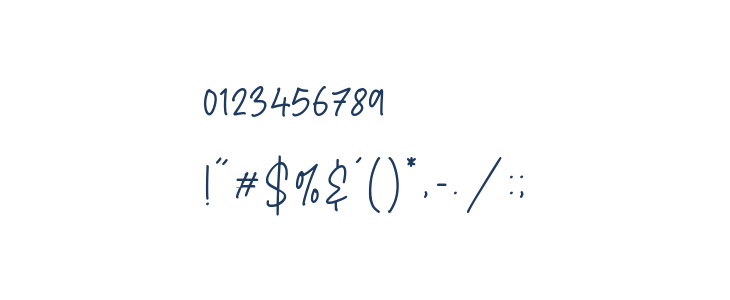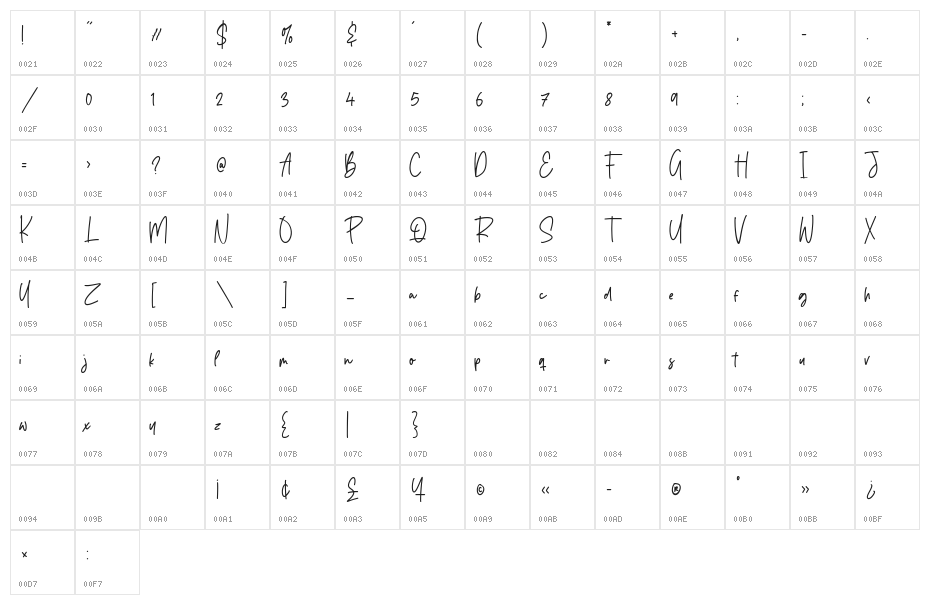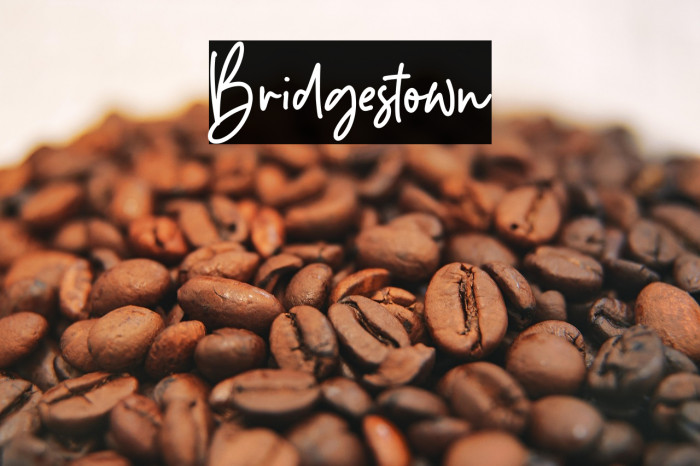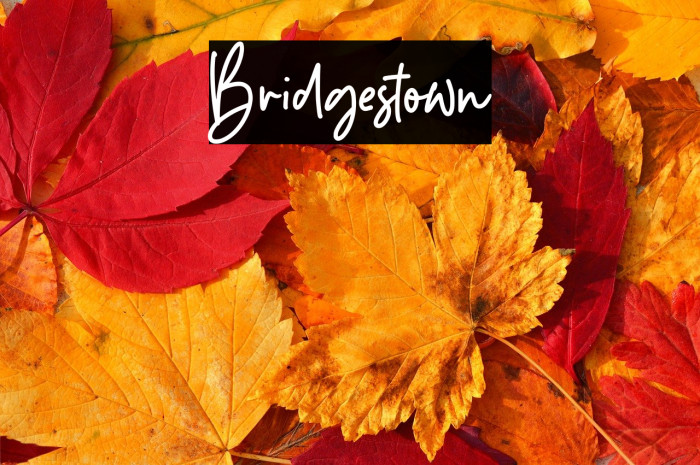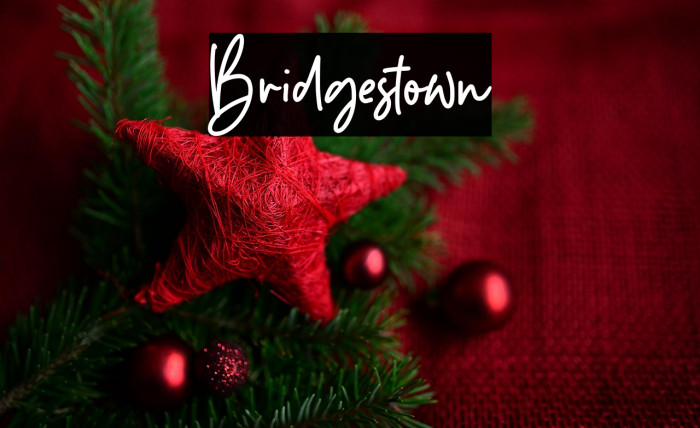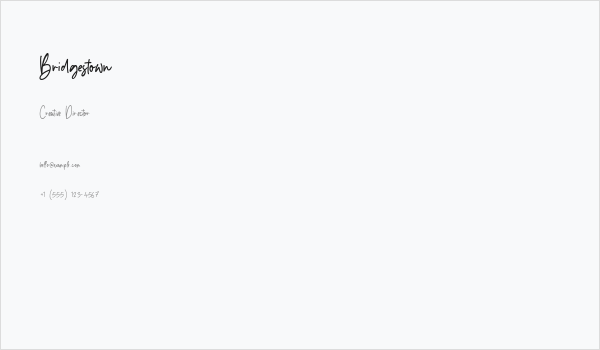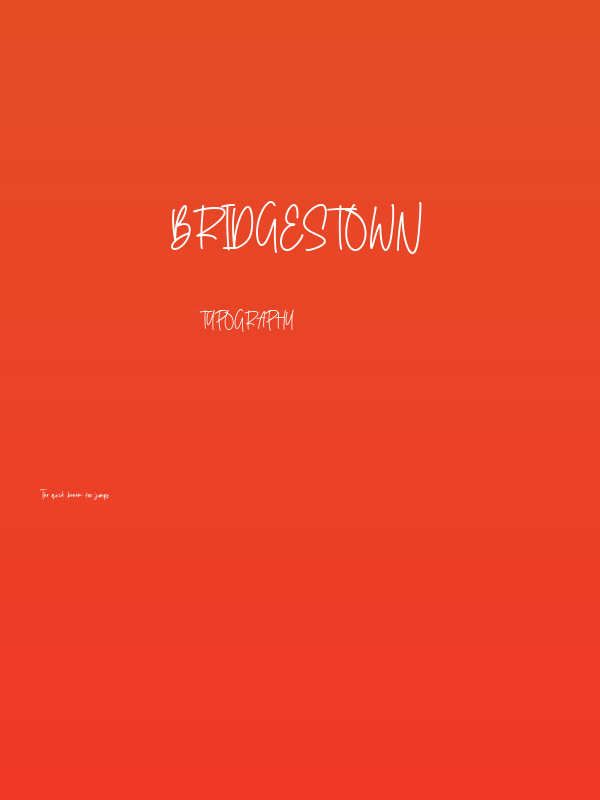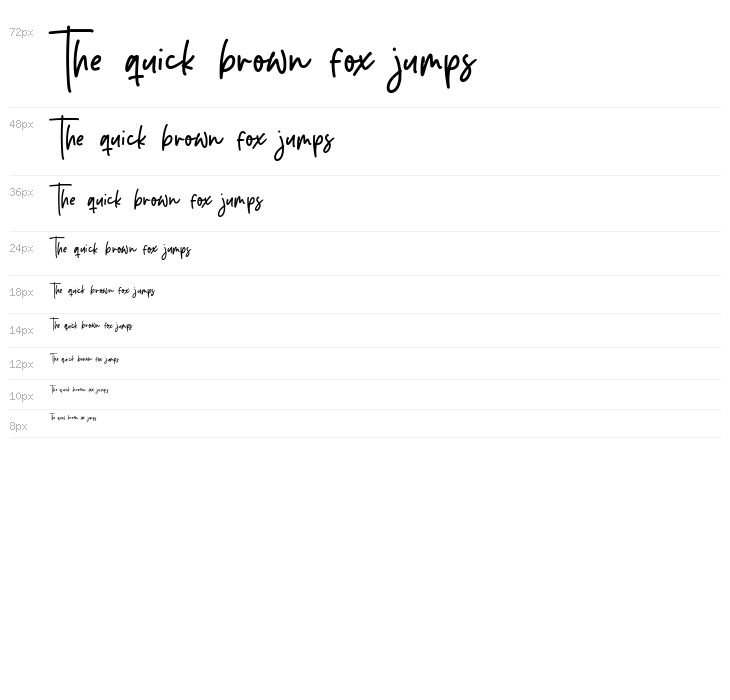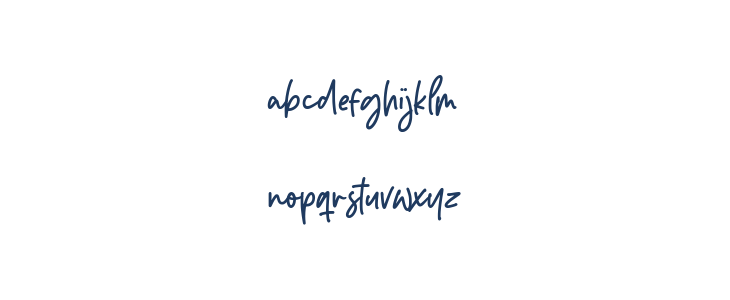
Bridgestown Font
Bridgestown Description
This font exudes a playful and casual handwritten style, characterized by its flowing and slightly irregular letterforms. The uppercase letters are tall and narrow, with a whimsical touch that adds personality to each character. The lowercase letters maintain a consistent style, complementing the uppercase with their rounded and approachable appearance. The numerals are clear and legible, following the same playful aesthetic. Special characters are creatively integrated, maintaining the overall informal and friendly vibe. This font is perfect for projects that require a personal touch, such as greeting cards, invitations, or creative branding.
Overall StyleCasual, Playful
Use CaseHeadlines, Logos, Invitations
Proposed ProjectsIdeal for greeting cards, invitations, creative branding, and personal projects.